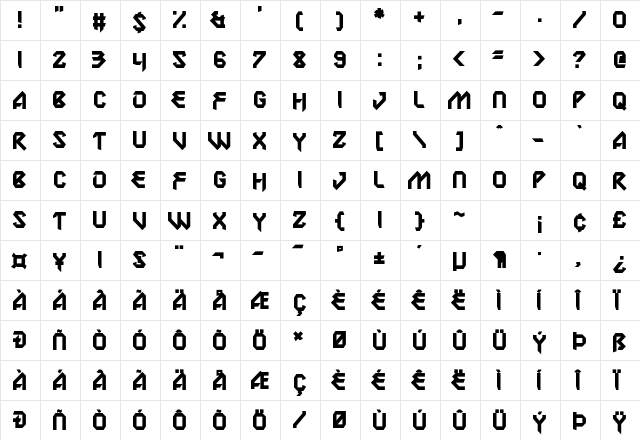
Lab Pulsar Regular
| Designer | NAL |
Design Context for Lab Pulsar Typeface
Lab Pulsar is a composed and adaptable typeface that performs quietly and consistently across a wide range of design contexts.